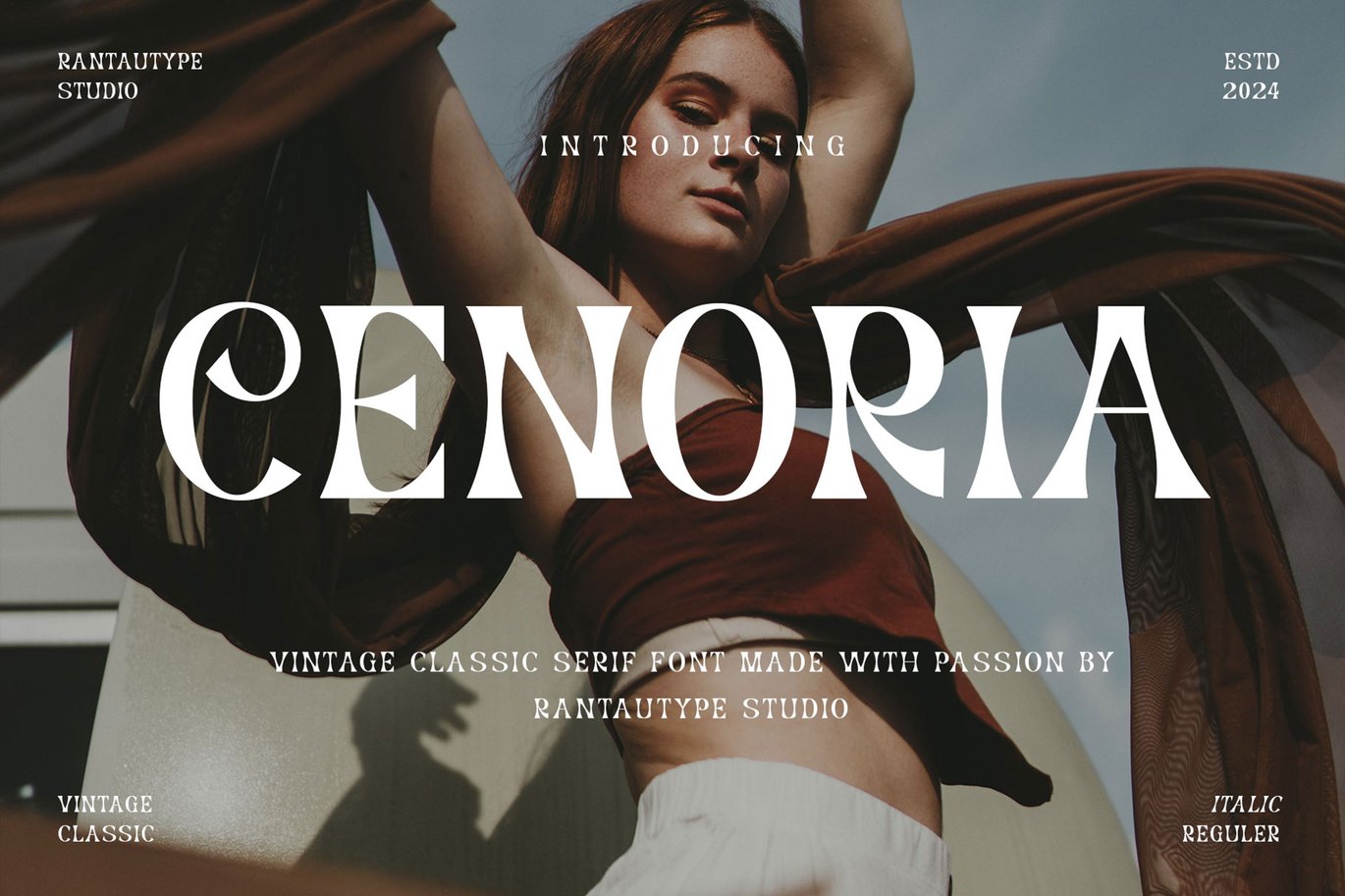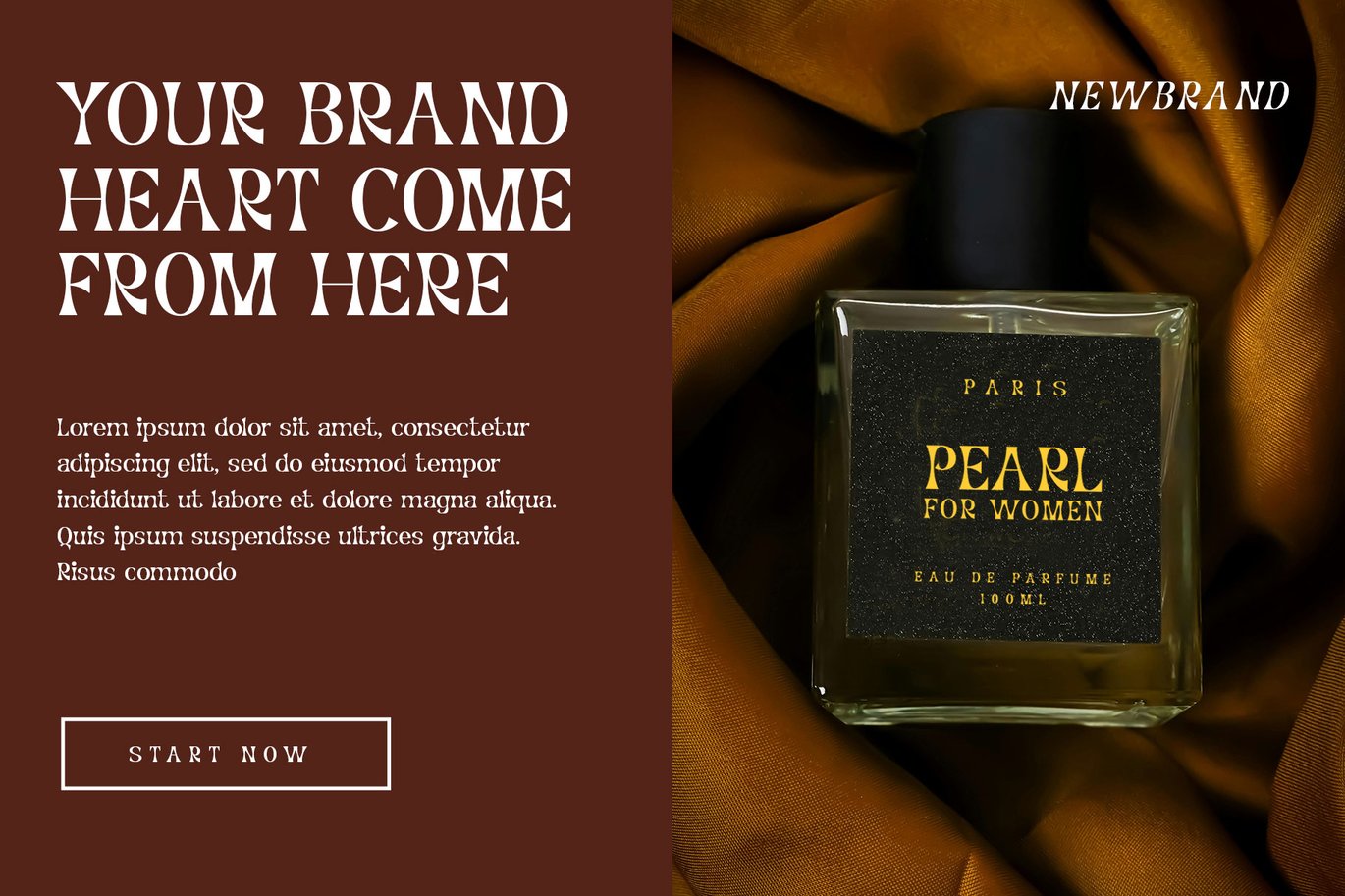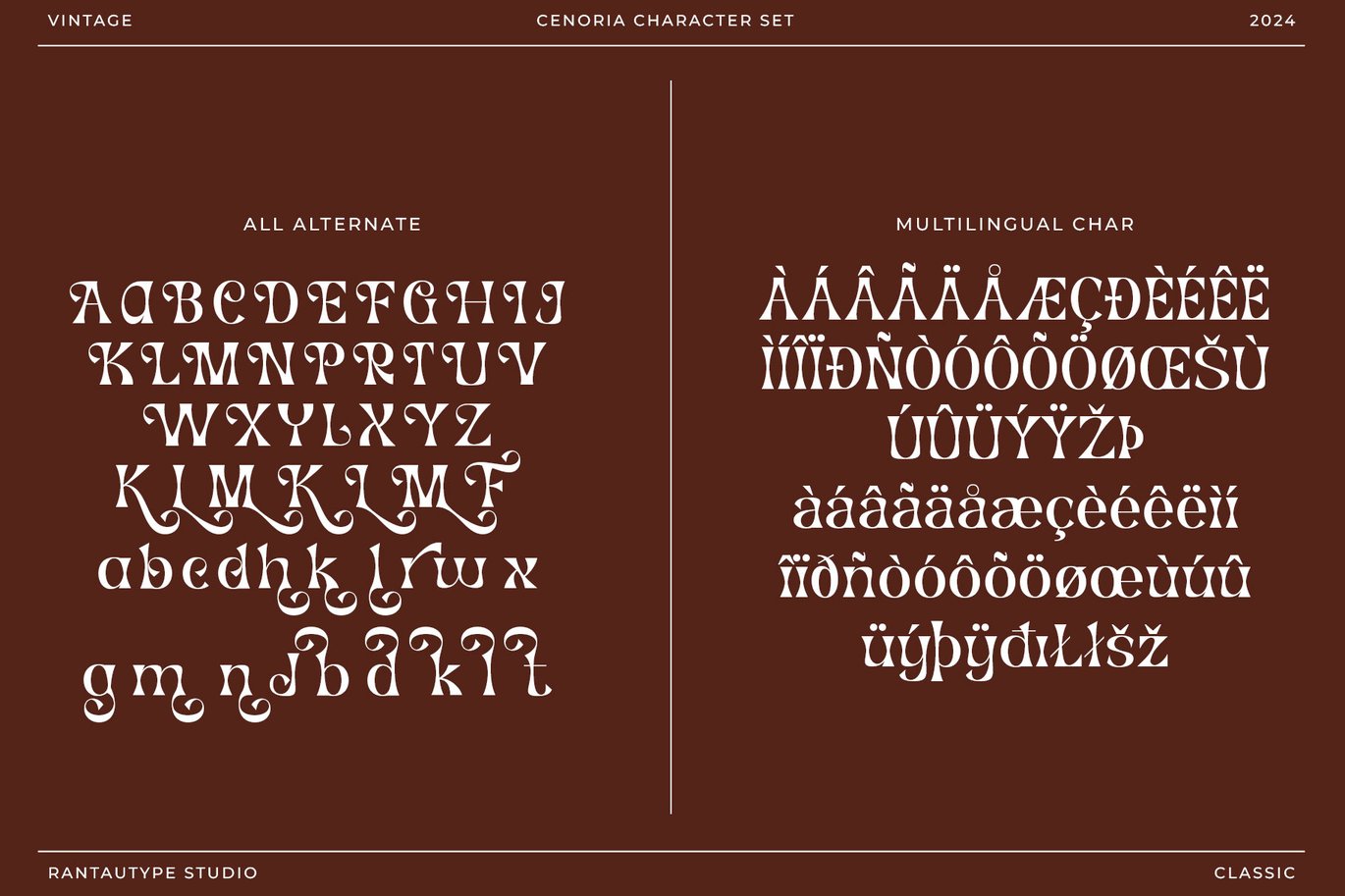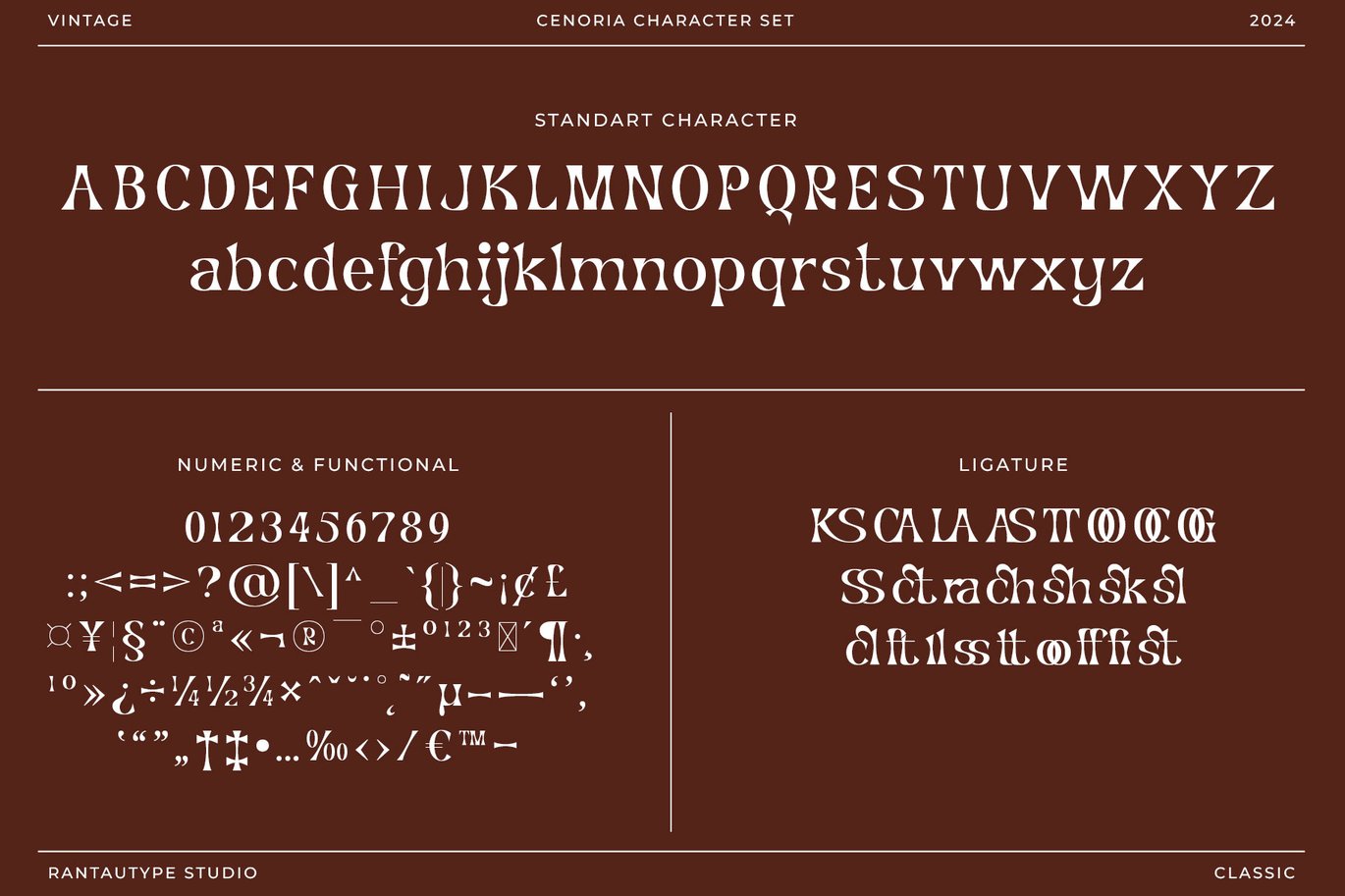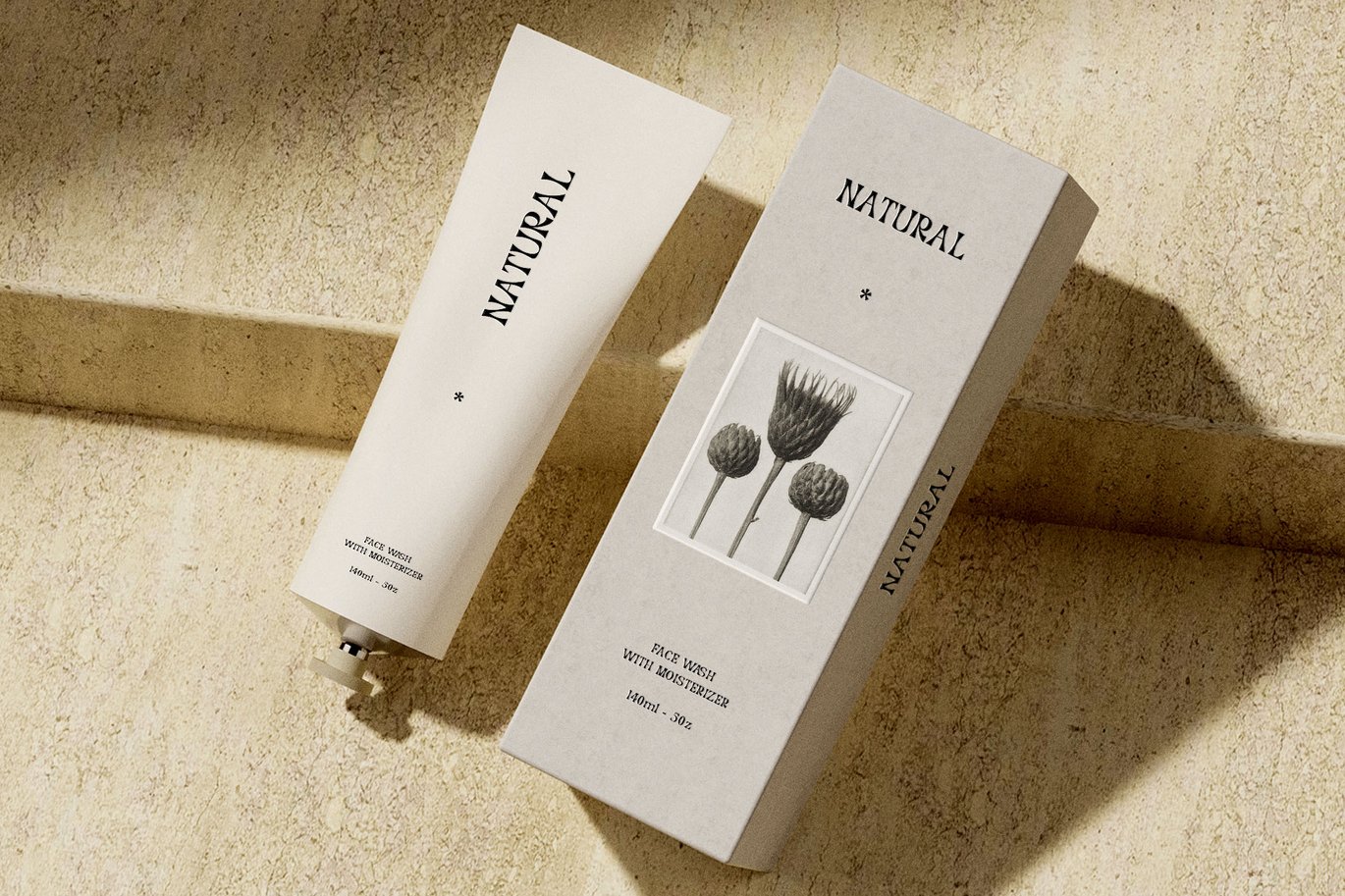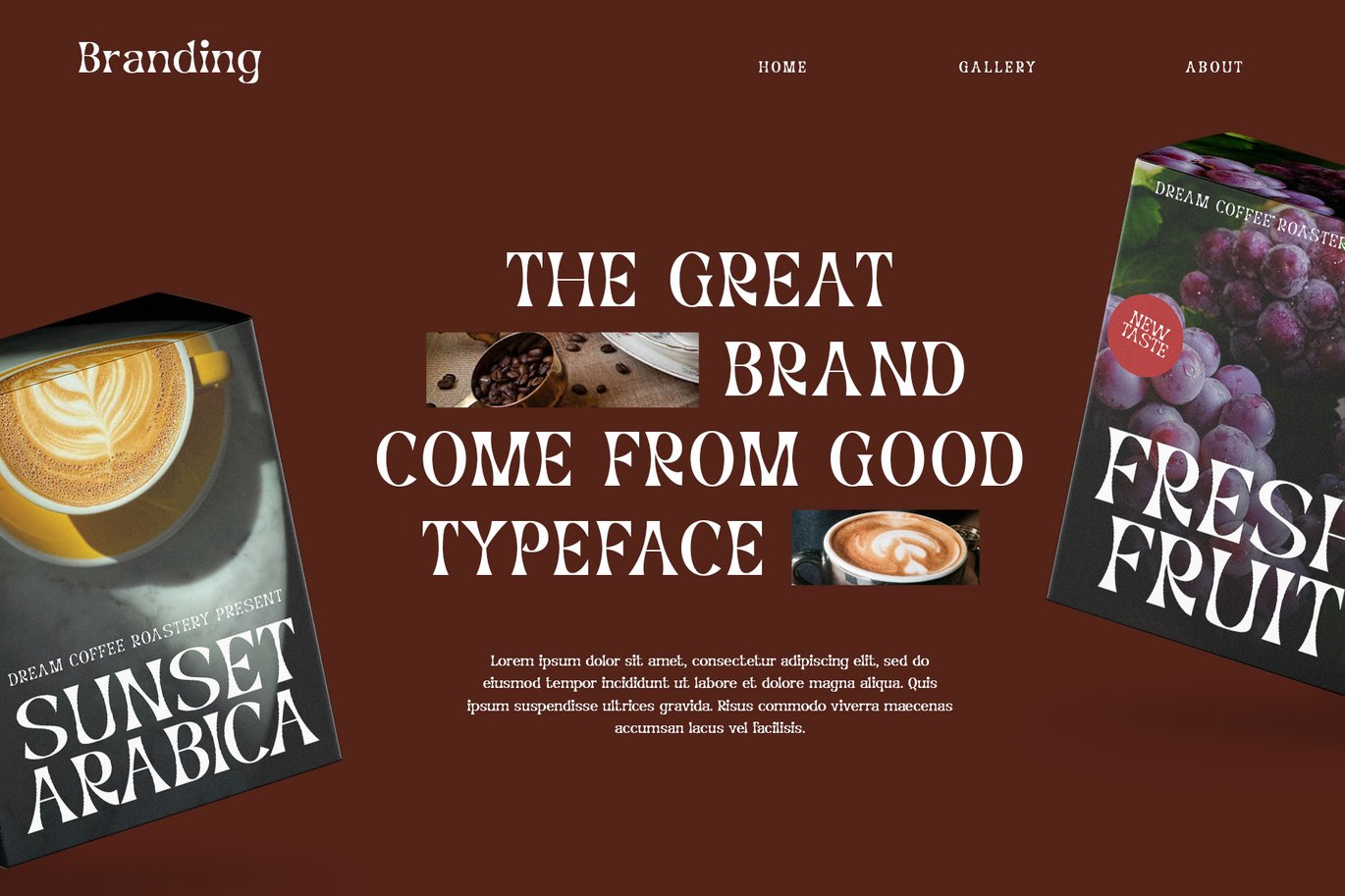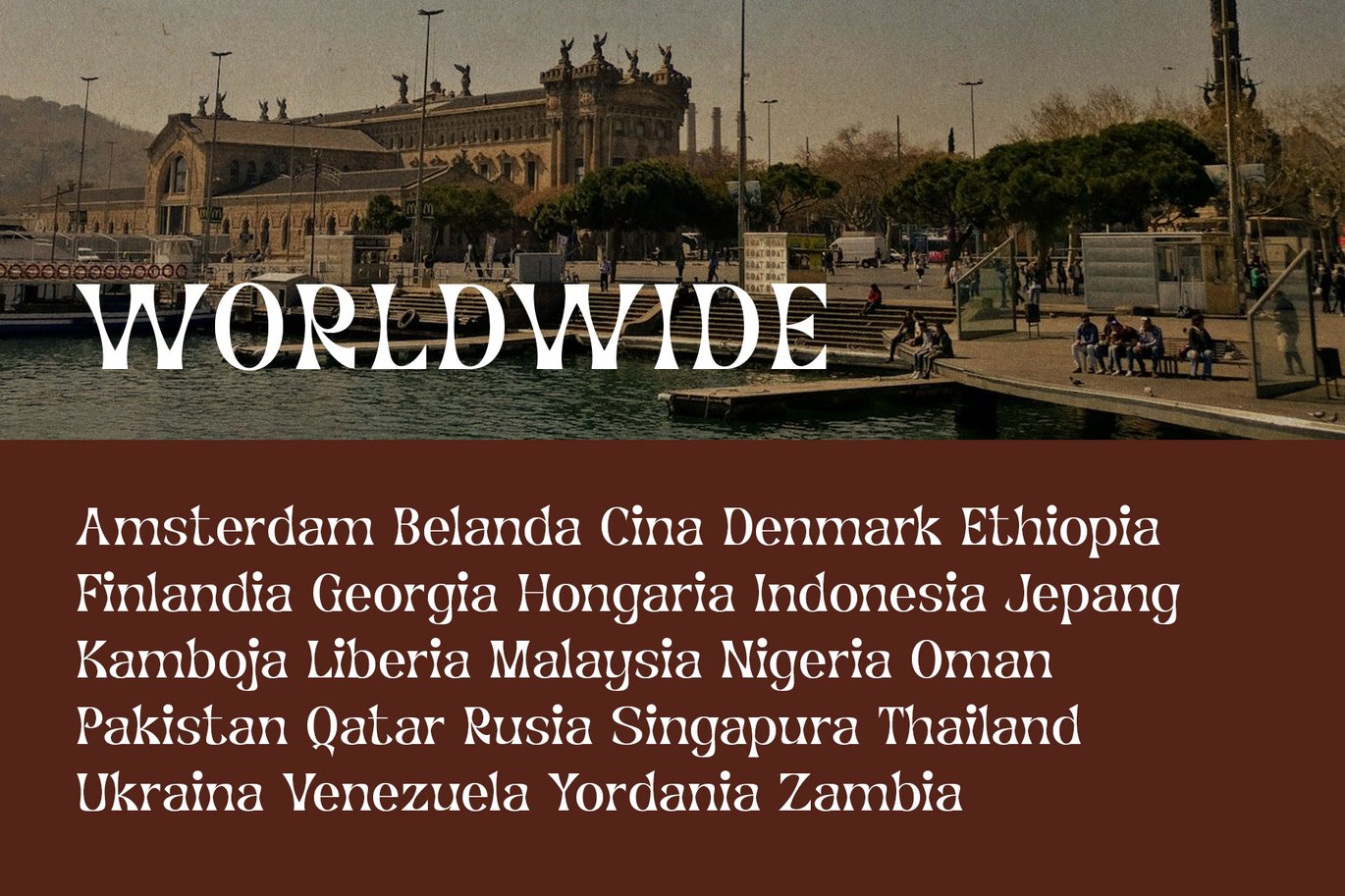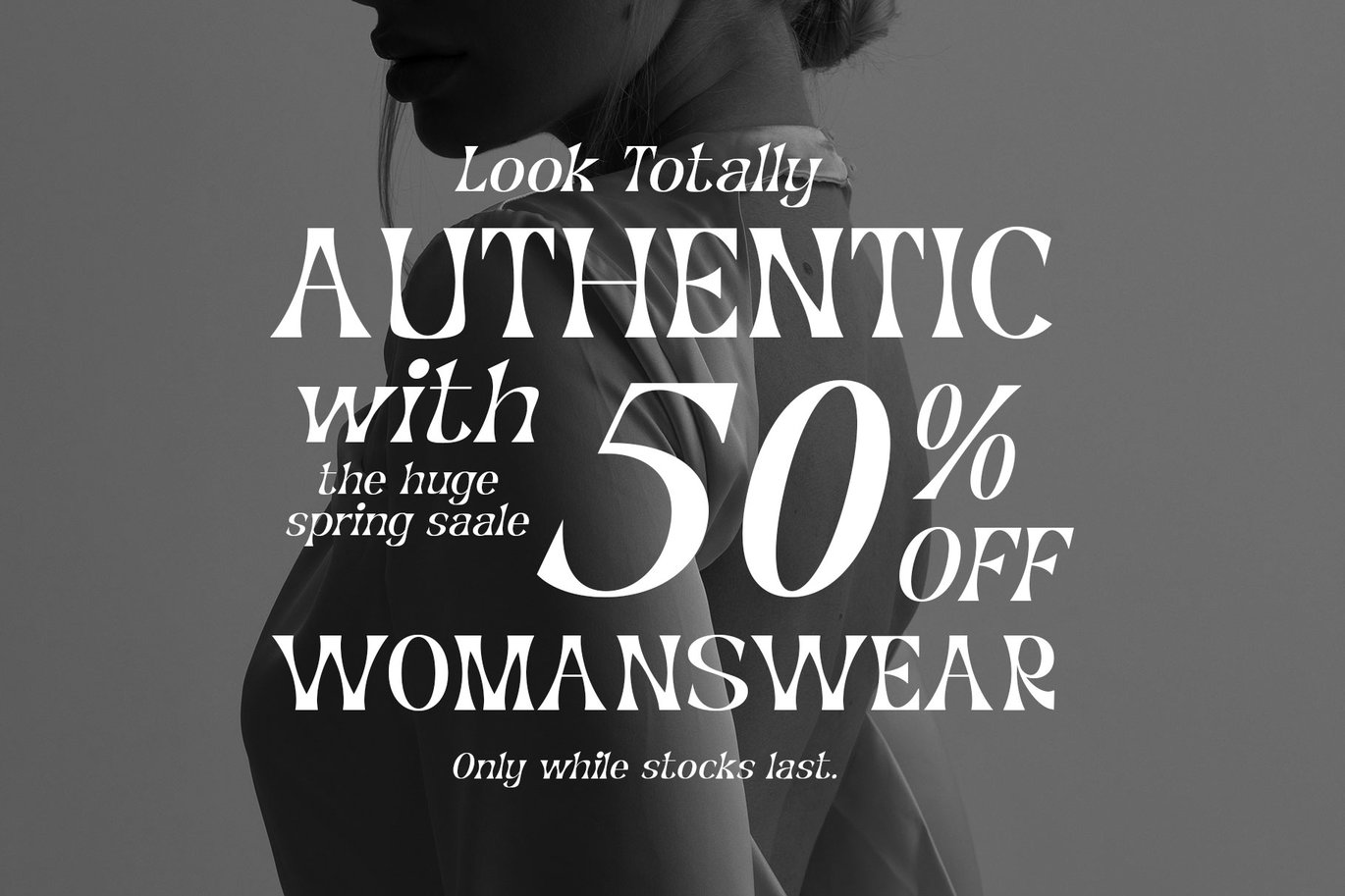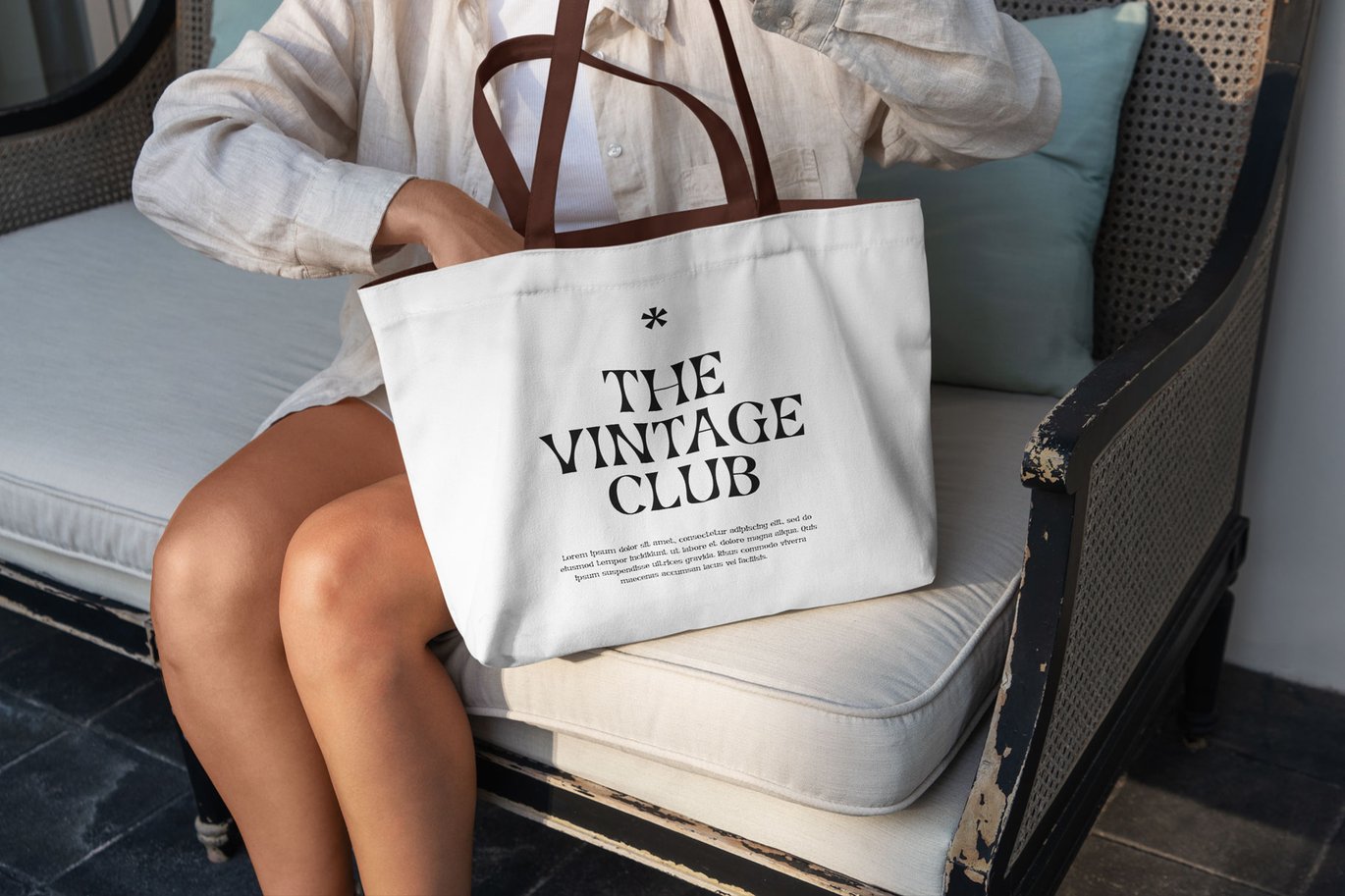
Cenoria Vintage Classic Font
Cenoria is classic vintage font with contras sharp and aesthetic shape captures the essence of the old-fashioned. Cenoria is a perfectly choice for any creative endeavor, chic, lifestyle design such as logos, advertisements, stationery, branding project, display and magazine, invitation, corporate brand, product design, label, business project and many other project with vintage nostalgic touch.
Fonts include Multilingual Character for: Afrikaans, Albanian, Asu, Basque, Bemba, Bena, Breton, Chiga, Cornish, Dutch, English, Estonian, Filipino, Finnish, Friulian, Galician, Gusii, Indonesian, Irish, Italian, Kabuverdianu, Kalenjin, Kinyarwanda, Luo, Luxembourgish, Luyia, Machame, Makhuwa-Meetto, Makonde, Malagasy, Manx, Morisyen, North, Ndebele, Nyankole, Oromo, Portuguese, Quechua, Romansh, Rombo, Rundi, Rwa, Samburu, Sango, Sangu, Scottish, Gaelic, Sena, Shambala, Shona, Soga, Somali, Spanish, Swahili, Swedish, Swiss, German.